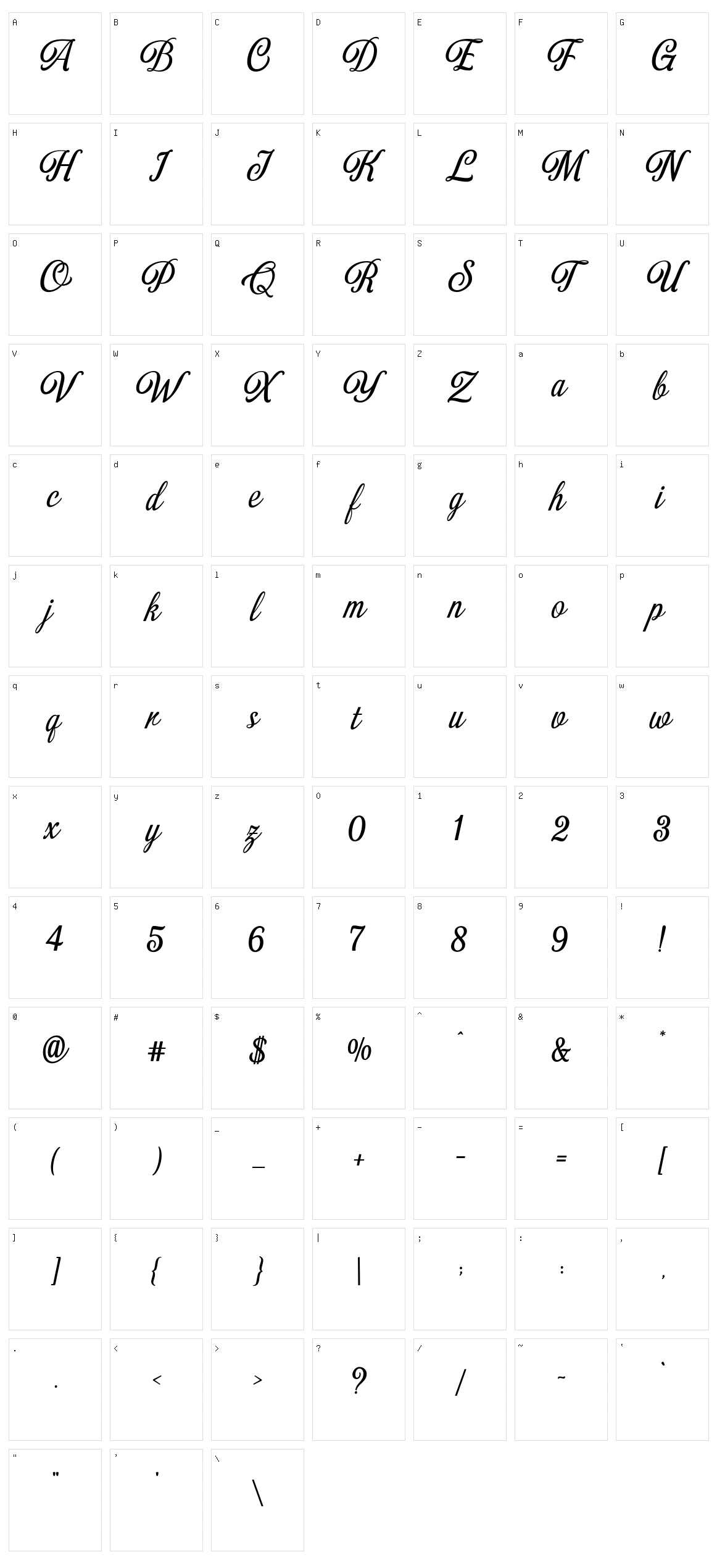
The free font Numberlin Ordinary is carefully designed by Graphicxell, showcasing a thoughtful balance of creativity and usability and falls under the Script font style. When you download the ZIP file, it contains only 68.67 KB of font files, making it lightweight and quick to download. Please review the license details below to understand permitted usage and distribution rights. If license information is not available, we recommend using this font for personal projects only or contacting the author directly for commercial usage permissions.